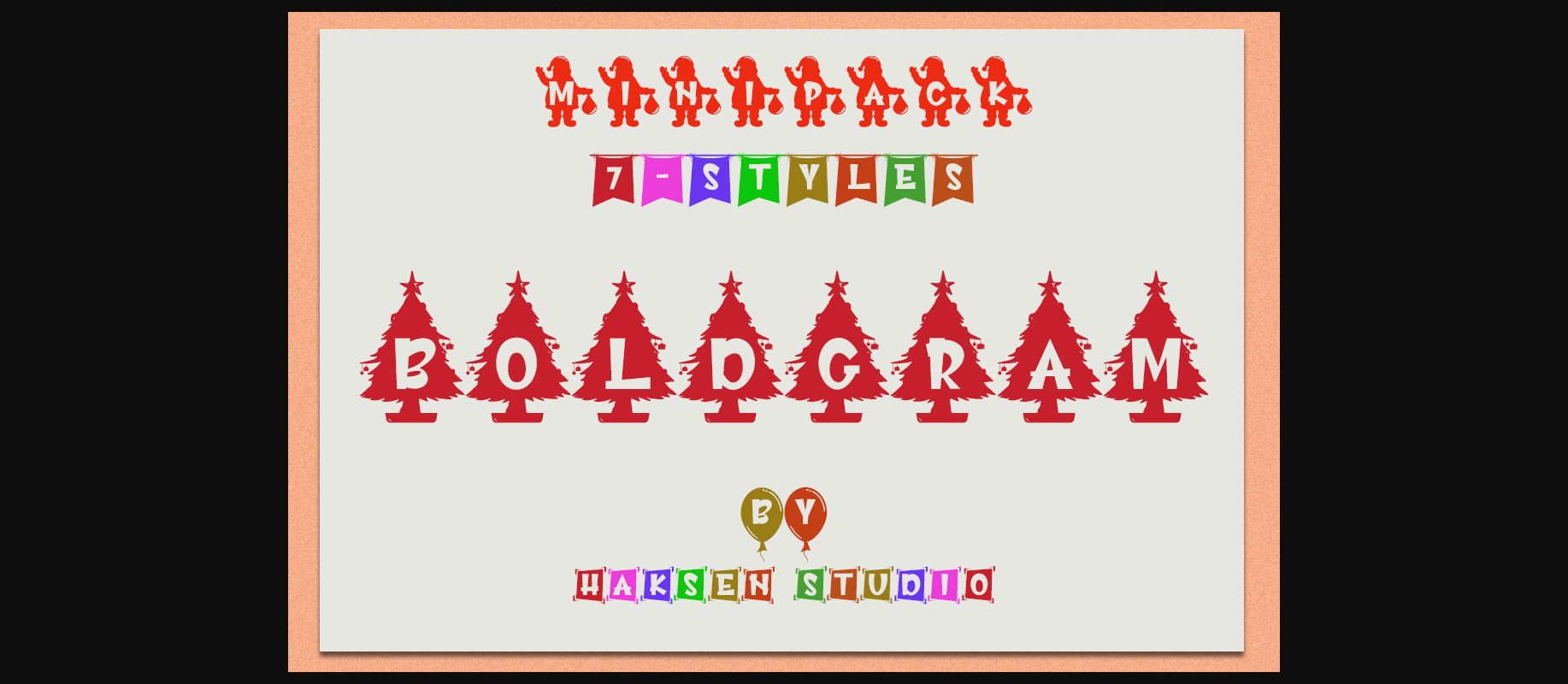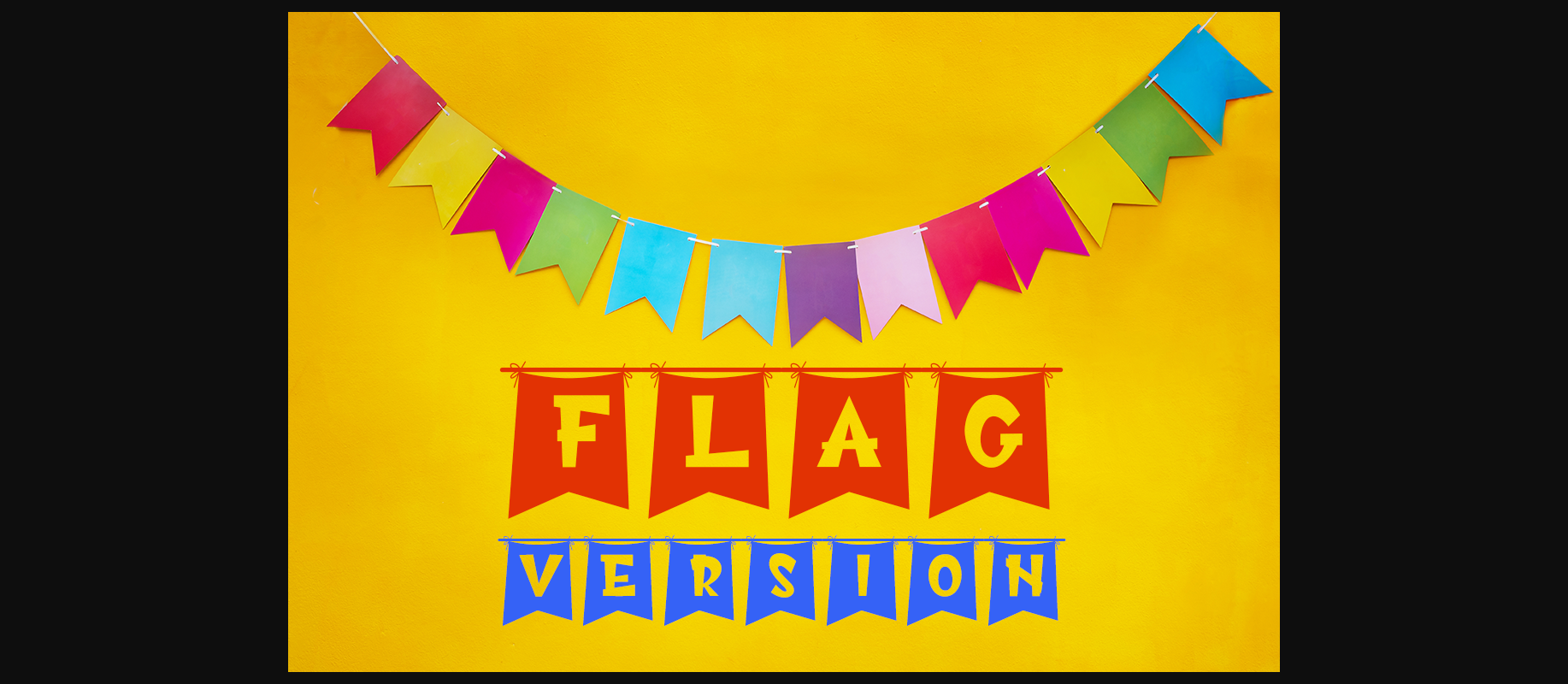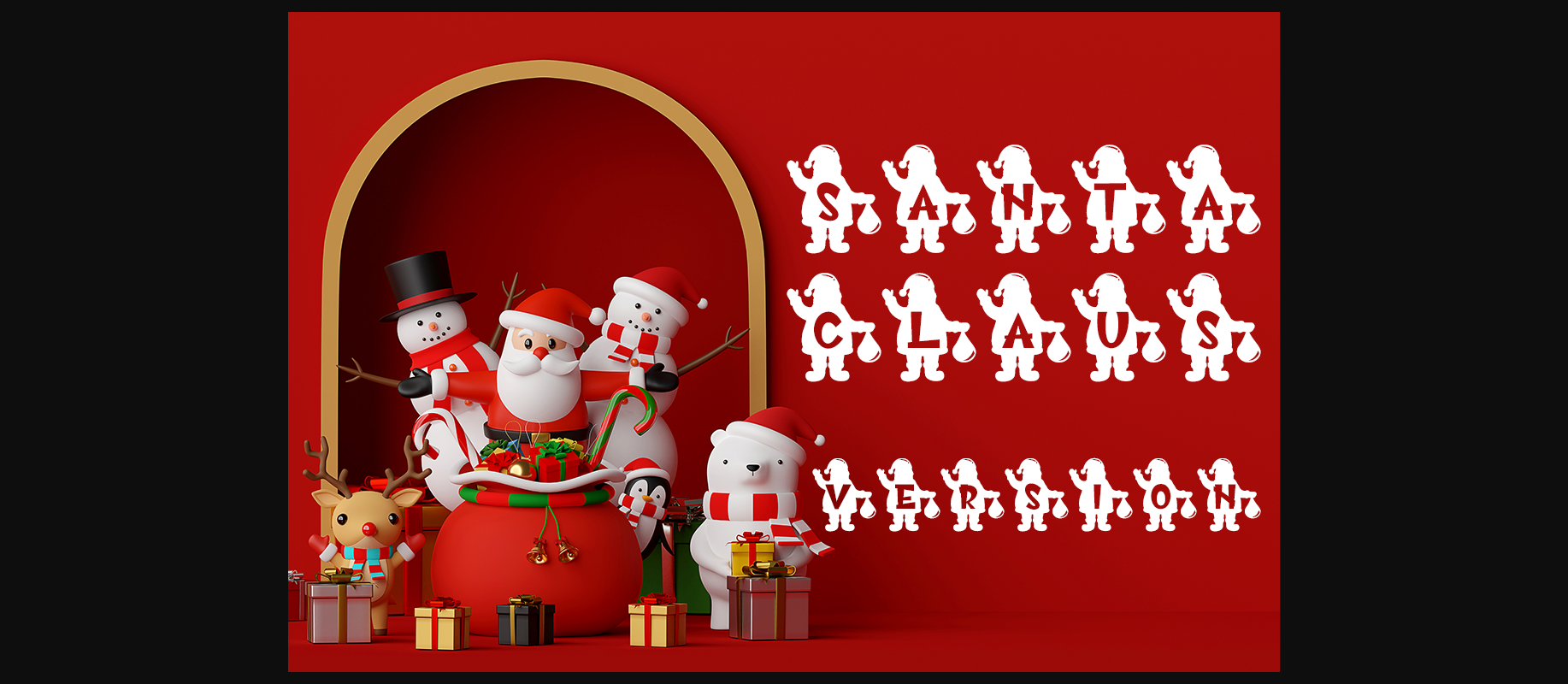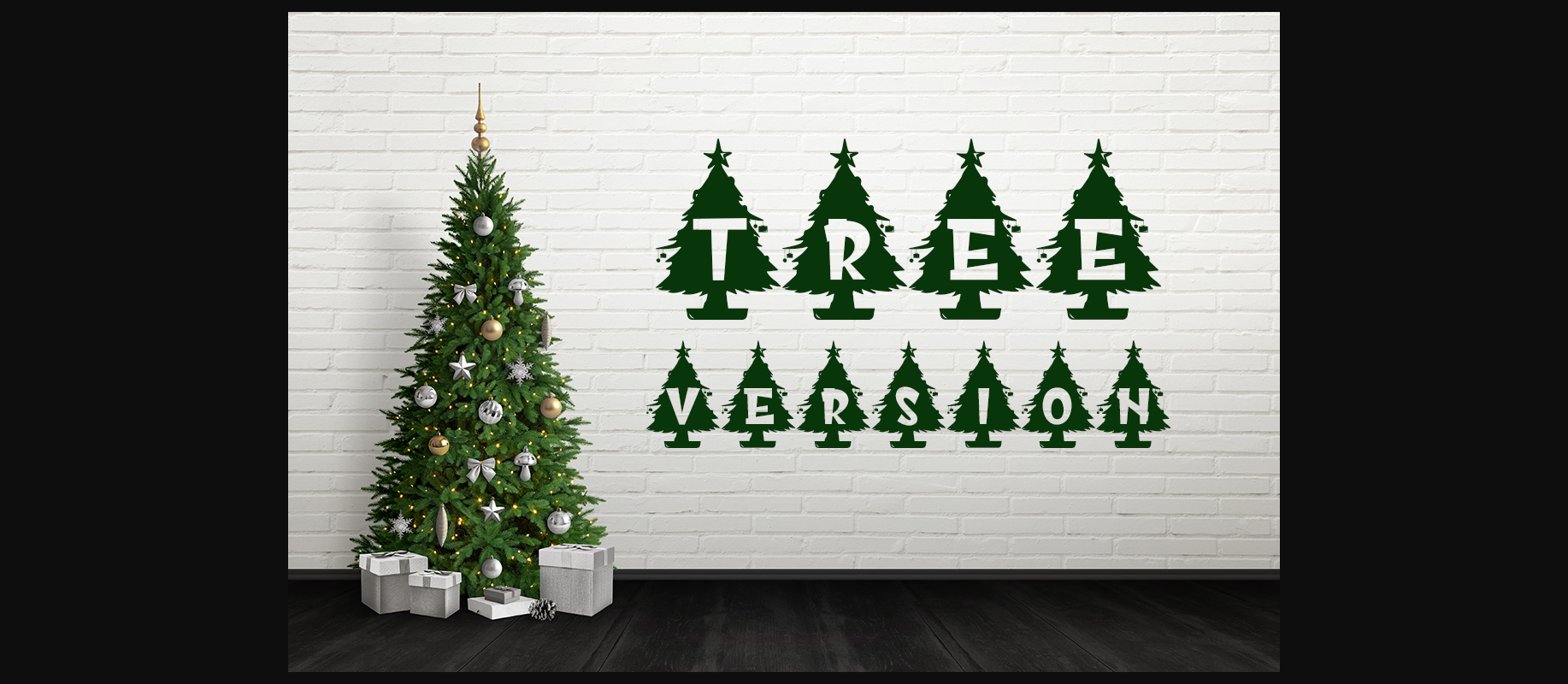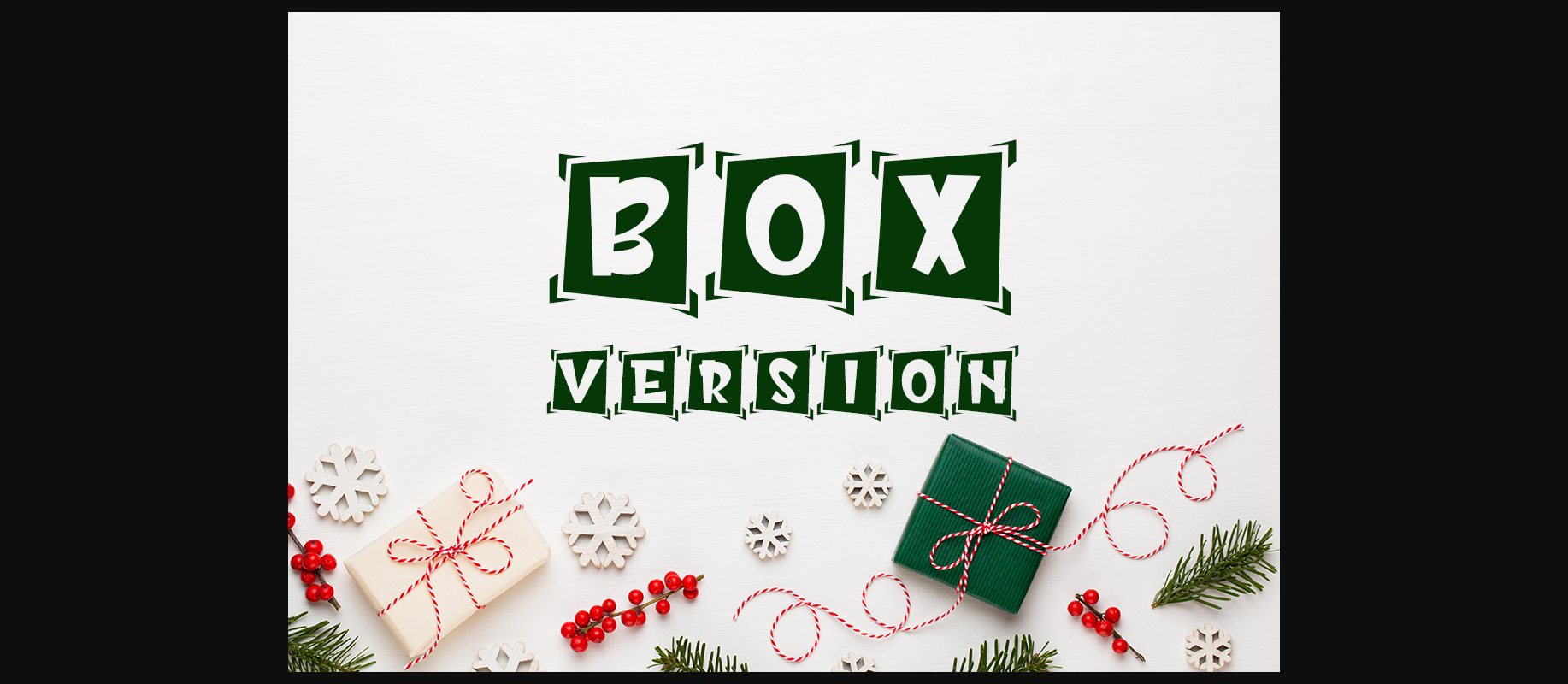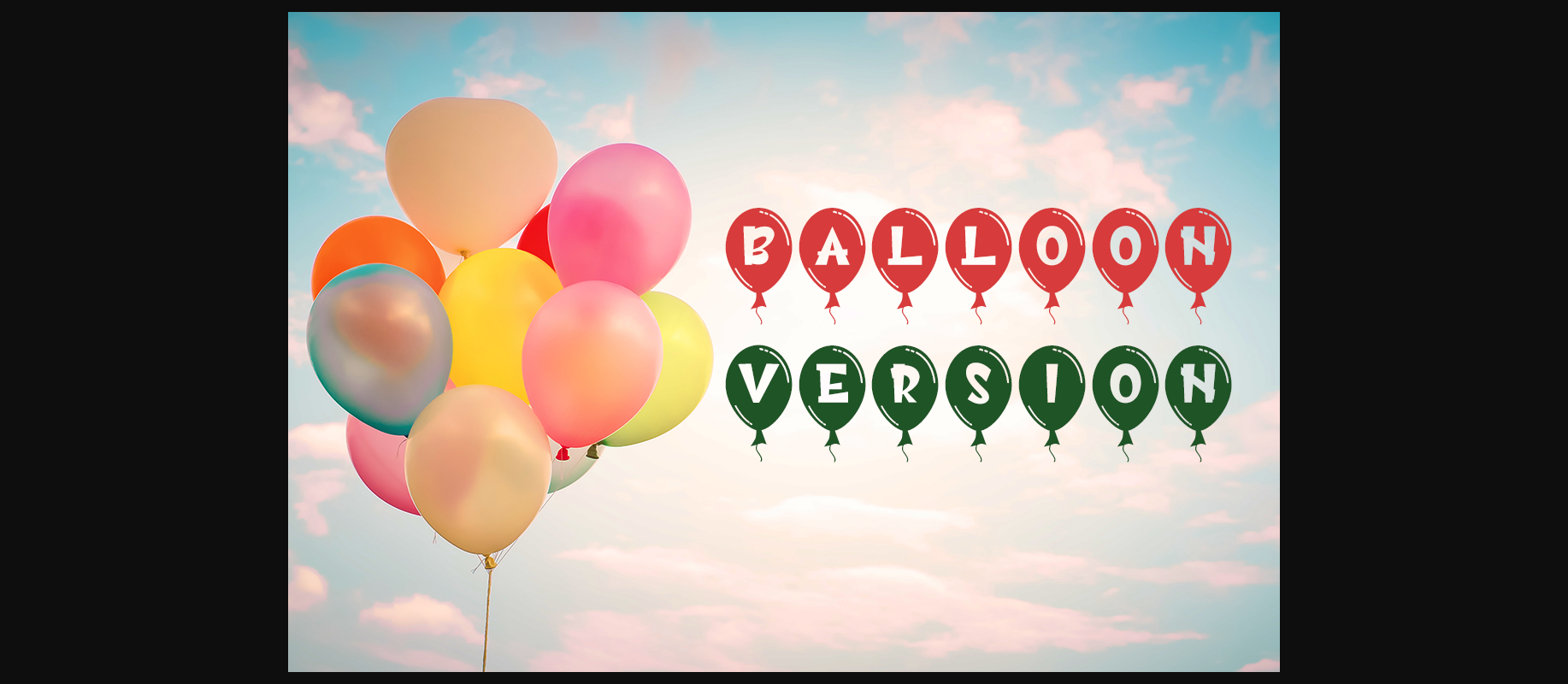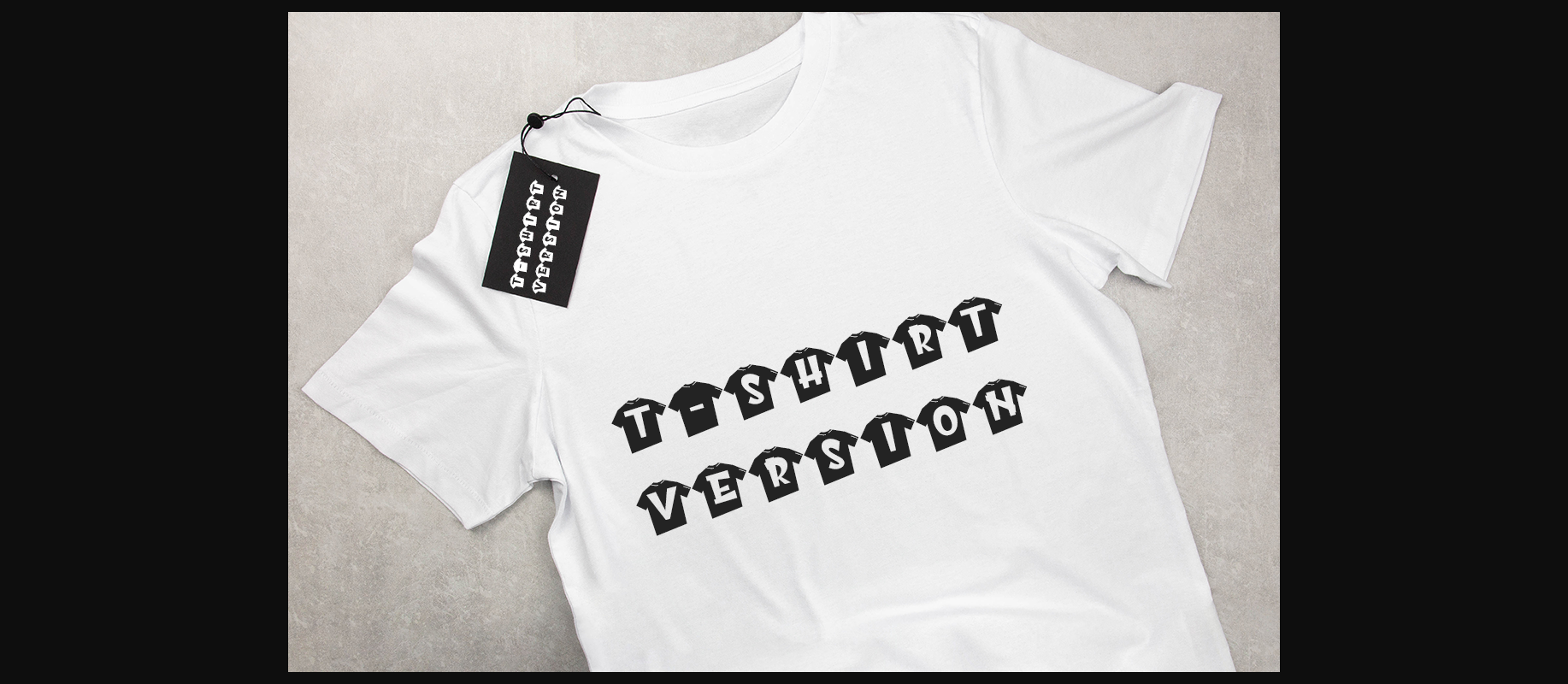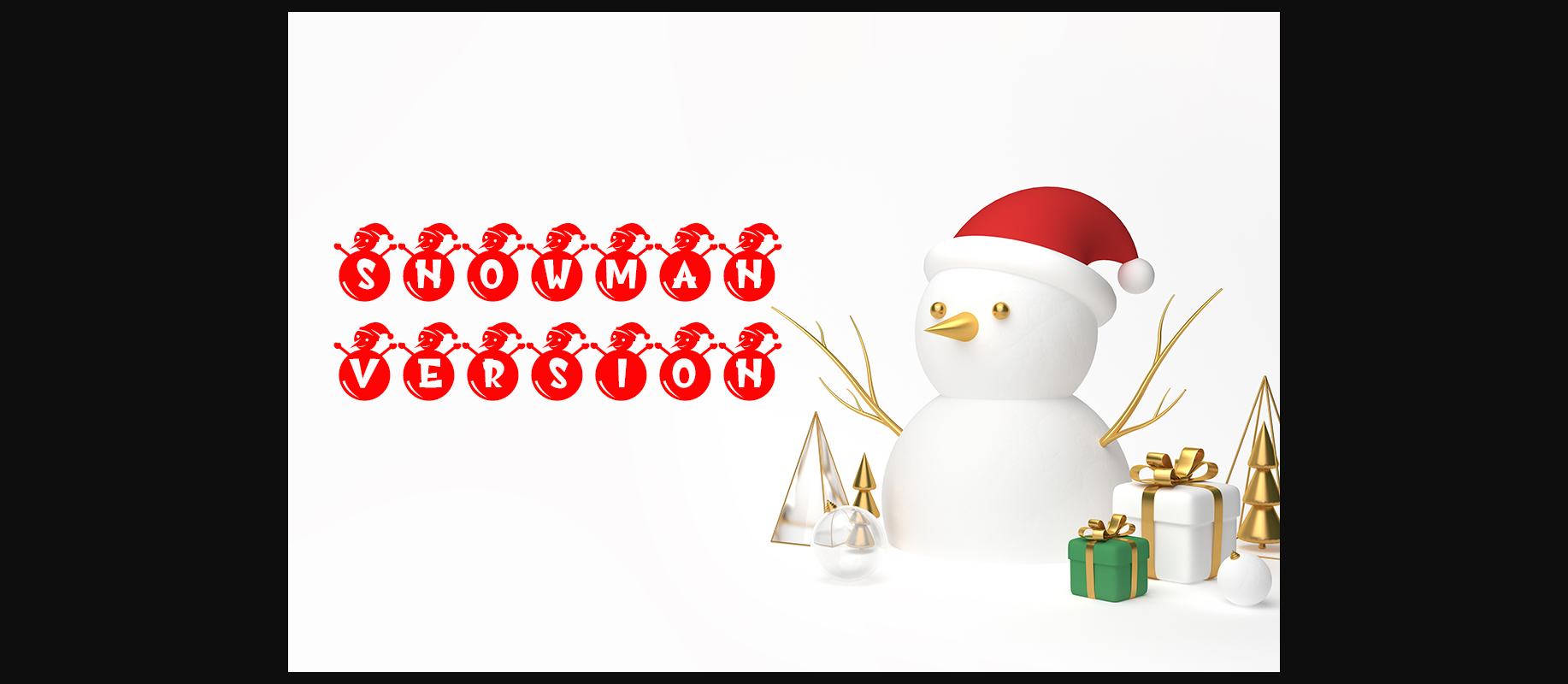
Boldgram Font
About Boldgram Font
Boldgram is a stunningly exciting decorative font family that will satisfy all designs needs you might have around the winter holidays! Balloons, trees, Santas, boxes, flags, you’ll find everything you need!